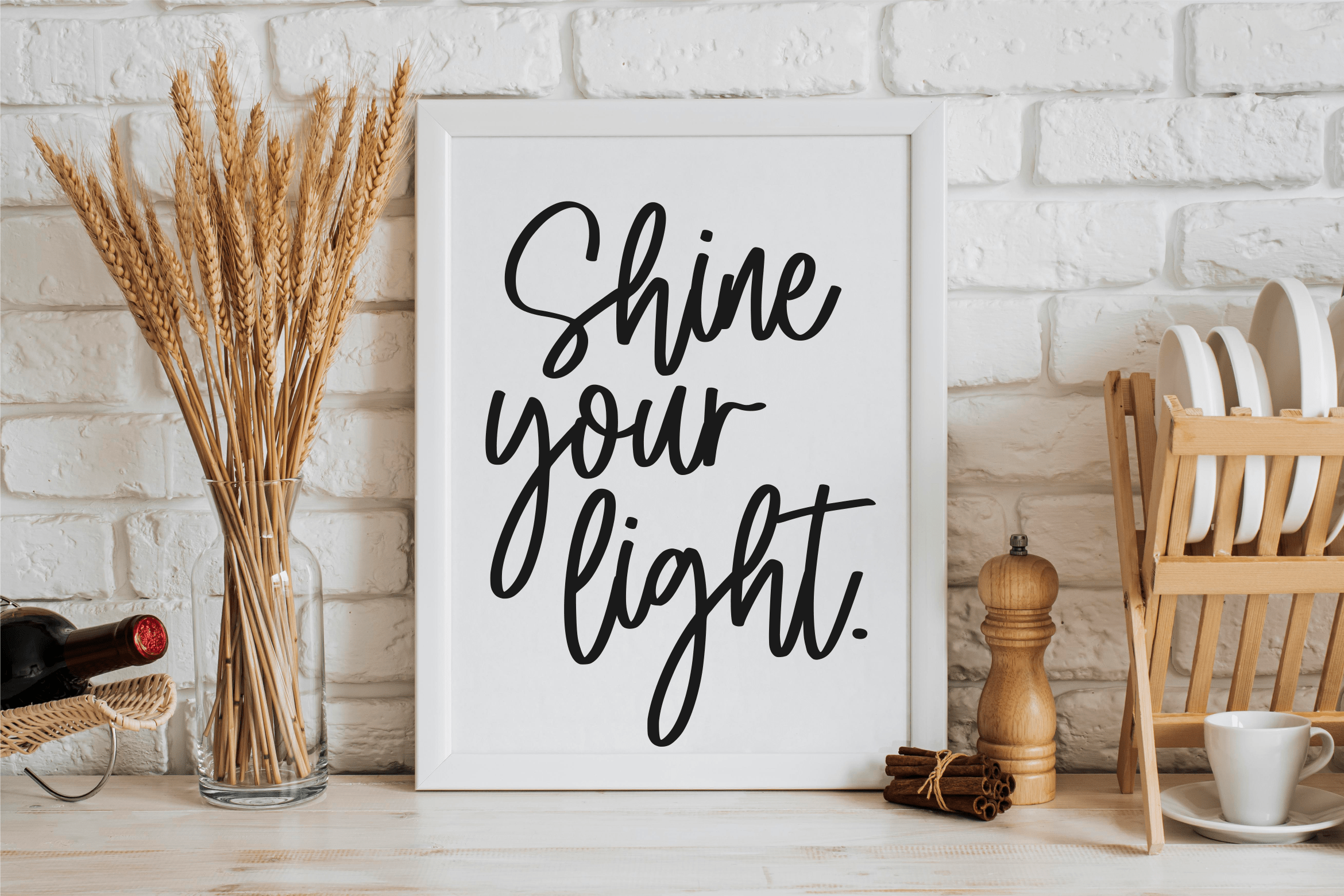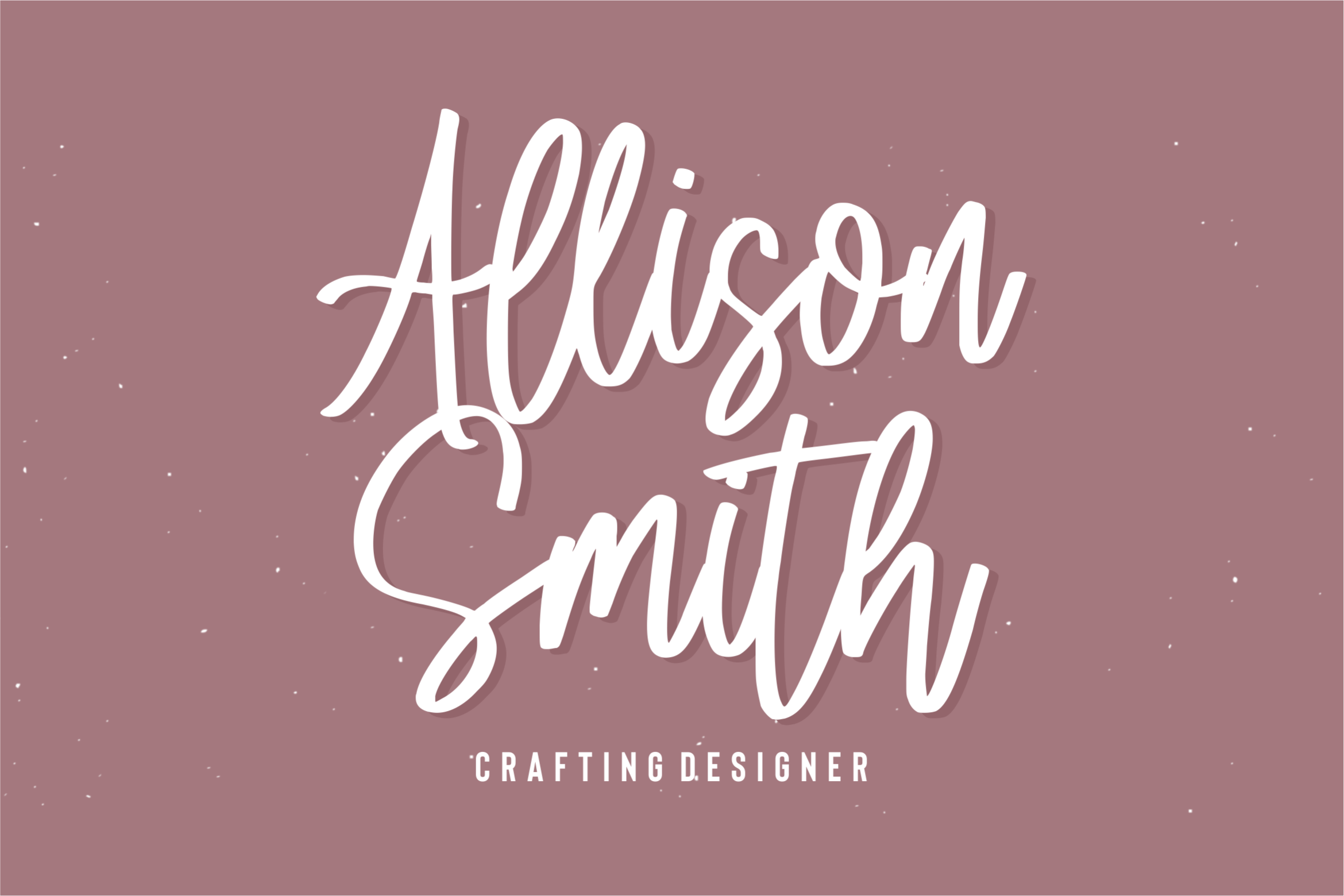
Mistigralley Font
Mistigralley Script Font
This is a sweet and cursive handwritten font. This gentle font will look gorgeous on a variety of design ideas. It will add a joyful and romantic touch to each of your projects!